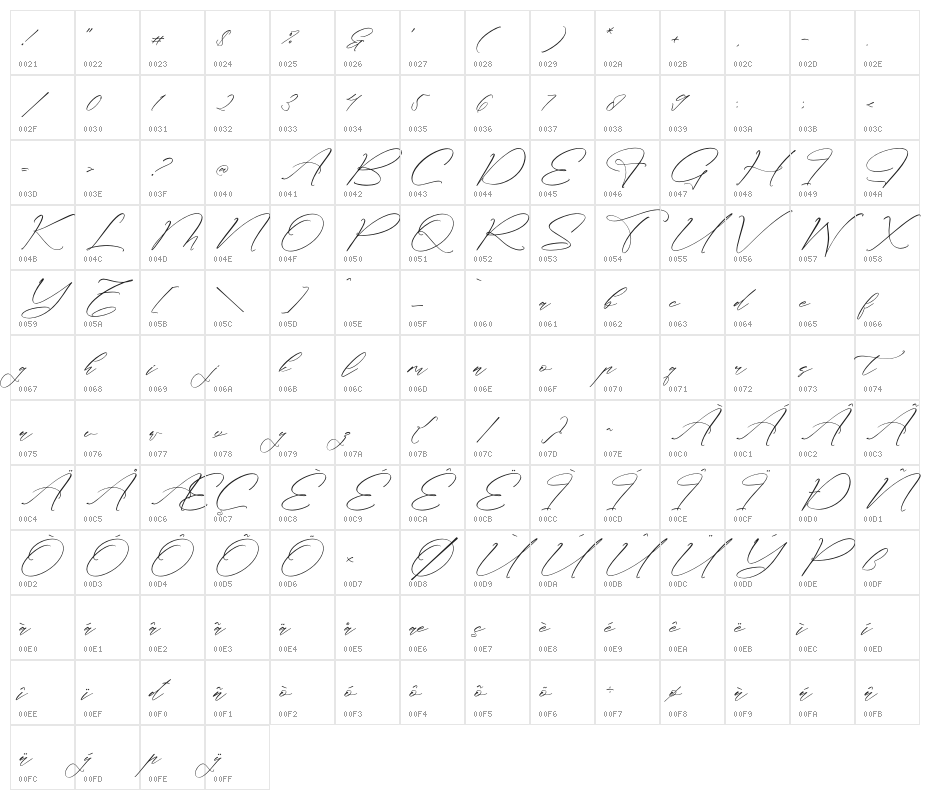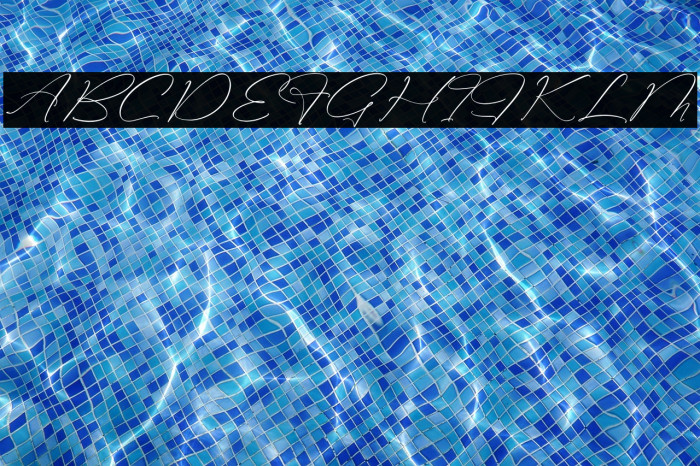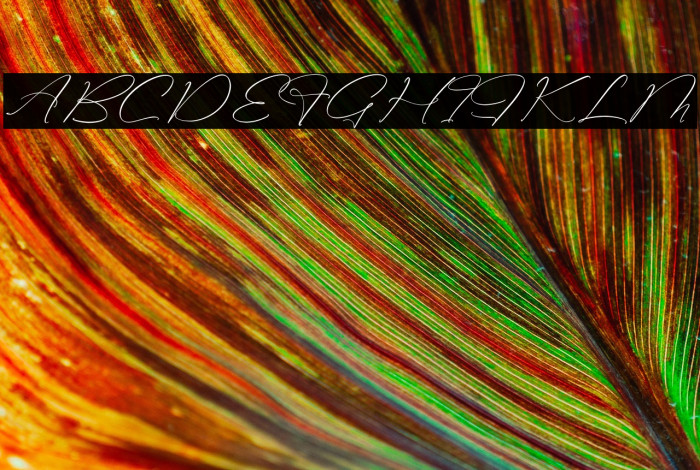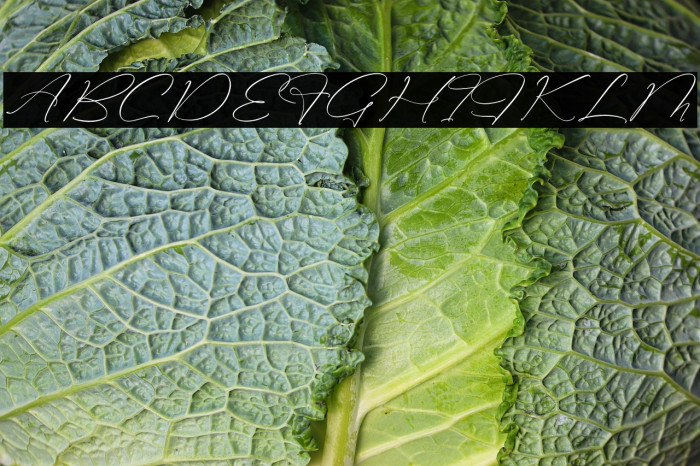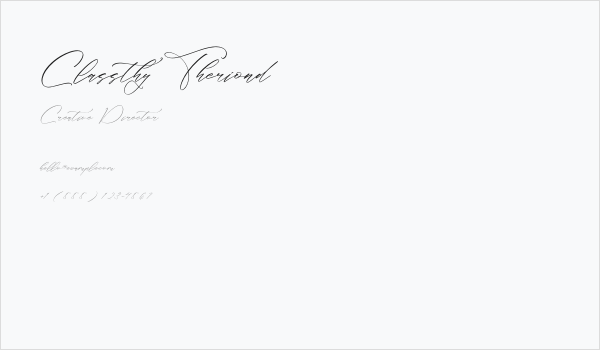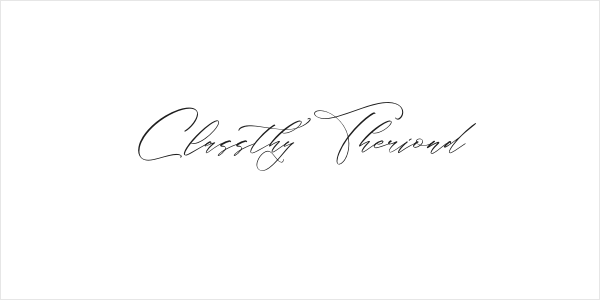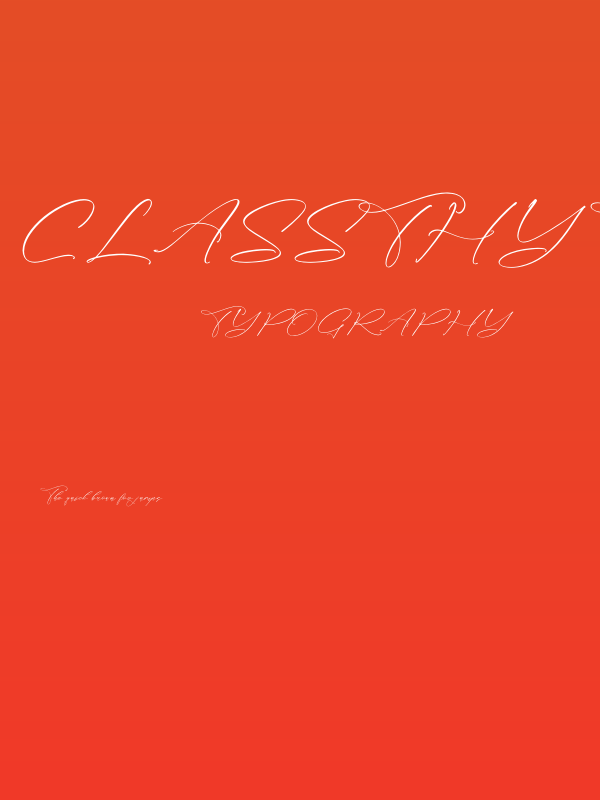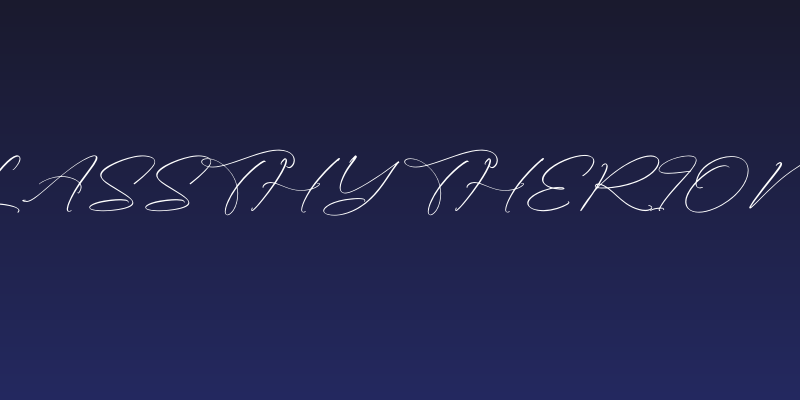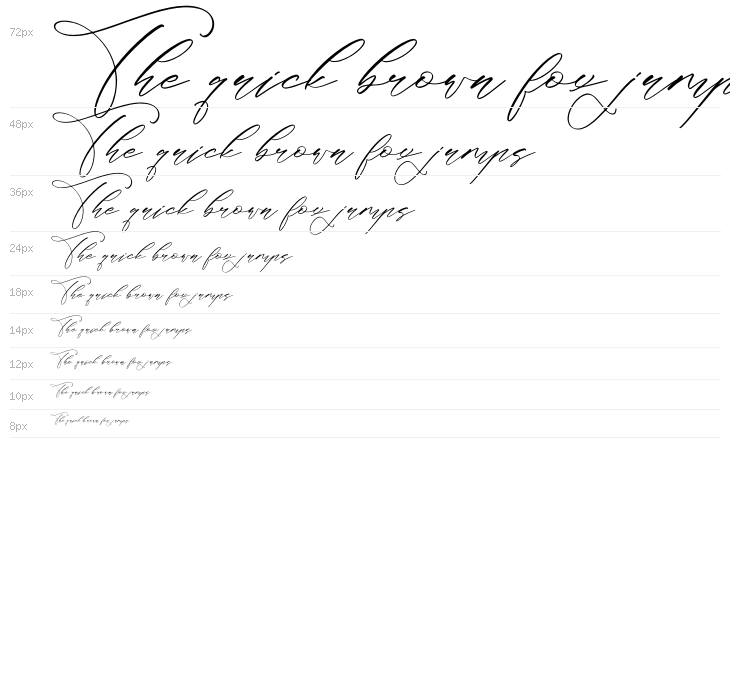
Classthy Theriond Font
Classthy Theriond Description
This elegant script font exudes a sense of sophistication and fluidity, characterized by its graceful, flowing lines and delicate curves. The uppercase letters are slightly more restrained, maintaining a sense of formality, while the lowercase letters exhibit a more expressive and dynamic style, with intricate loops and swashes. The numerals and special characters are consistent with the overall aesthetic, offering a cohesive look. This font's thin strokes and high contrast give it a refined and luxurious appearance, making it ideal for projects that require a touch of elegance and class.
| Overall Style | Elegant, Sophisticated |
| Use Case | Invitations, Branding, Stationery |
| Proposed Projects | Ideal for wedding invitations, luxury branding, elegant stationery, and high-end product packaging. |